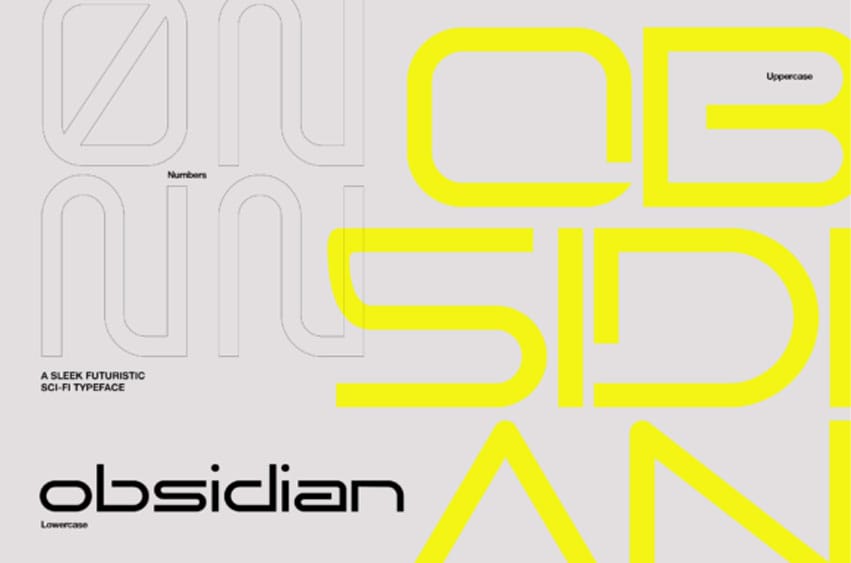
Obsidian Font is a stunning sci-fi sans display font perfect for headlines, editorials, branding, apparel, posters, web design, social media, packaging, labels, movies, and typographic projects.
Obsidian is an absolute workhorse and is ready to be used out of the box. If you need a typeface that’s clean, minimal, and futuristic, then Obsidian is for you.